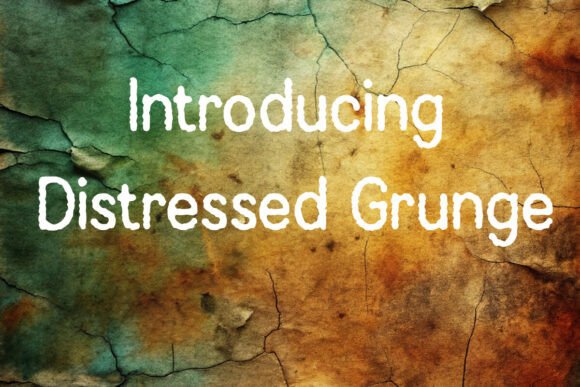
Unleash Your Creativity with Distressed Grunge Font
Have you ever stared at a blank canvas, searching for the perfect font to bring your creative vision to life? The moment when the perfect font clicks into place is pure magic, isn’t it? It’s that instant when your design transforms from bland to bold, from ordinary to extraordinary.
That’s exactly where the Distressed Grunge Font comes in – a masterfully crafted typeface designed to infuse an edgy, artistic touch to your creations. Whether you’re crafting eye-catching graphics, designing impactful branding, or working on captivating Cricut projects, this font adds an undeniable layer of sophistication.
As a designer, you know the value of having the right tools at your disposal. The Distressed Grunge Font is a versatile and essential addition to your design arsenal, guaranteed to elevate your projects and leave a lasting impression on your audience.
Distressed Grunge Font Key Features
- Font Style: Distressed, Grunge, and Hand-Drawn
- Unique Characteristics: Includes distressed textures, wear and tear effects, and subtle imperfections to give a grunge look
- Character Set: Includes a wide range of characters, including uppercase and lowercase letters, numbers, and punctuation marks
Designer Review: Distressed Grunge Font
When I first laid eyes on the Distressed Grunge Font, I knew I had to dive in and see what all the fuss was about. Here’s my honest take on this trendy font.
- The distressed effect adds a level of depth and character to the font, making it perfect for rock-inspired designs or layouts with a vintage vibe.
- The font’s versatility shines through in its ability to work well in both digital and print contexts.
- The subtle texture and grunge aesthetic give the font a unique, eye-catching feel that’s sure to grab attention.
- The font’s distressed look can be overwhelming in large quantities, making it difficult to read for extended periods.
- The font’s grunge aesthetic may not be to everyone’s taste, which could limit its appeal in more conservative design contexts.
- The font’s texture can sometimes be too dominant, overpowering the content it’s meant to convey.
Overall, the Distressed Grunge Font is a solid choice for designers looking to add some edge to their projects. While it’s not without its limitations, the font’s unique charm and versatility make it a valuable addition to any design toolkit.
Use the Distressed Grunge Font to create a vintage or worn look for:
- Music festival or concert posters.
- Street art or graffiti designs.
- Retro-style advertisements or promotions.
- Emphasis text in social media graphics or blog posts.
Alternatives to Distressed Grunge Font
For designers looking to add a touch of ruggedness to their designs, here are some alternatives to the Distressed Grunge Font:
1. Rock Salt Font
The Rock Salt Font is a distressed font that resembles worn-out stone carvings. It’s ideal for use in headings and titles where a rugged, vintage feel is desired. Compared to Distressed Grunge Font, Rock Salt Font has a more subtle, weathered look that’s perfect for designs that require a softer, more refined distressed effect.
2. Chango Font
The Chango Font is a distressed sans-serif font that’s perfect for use in body text and headings. It’s ideal for designs that require a bold, edgy feel without being too overwhelming. Compared to Distressed Grunge Font, Chango Font has a more modern, rugged look that’s perfect for designs that need a touch of grit and sophistication.